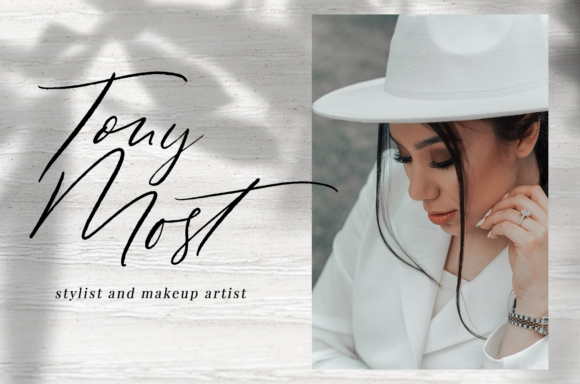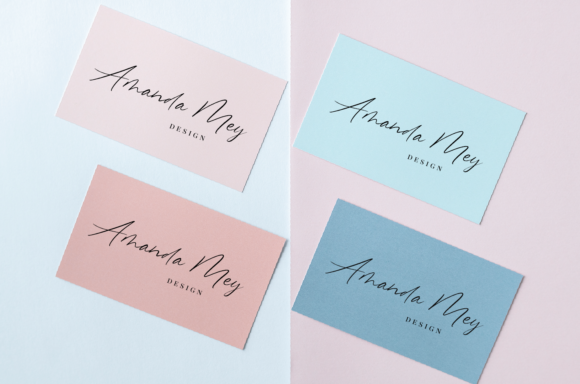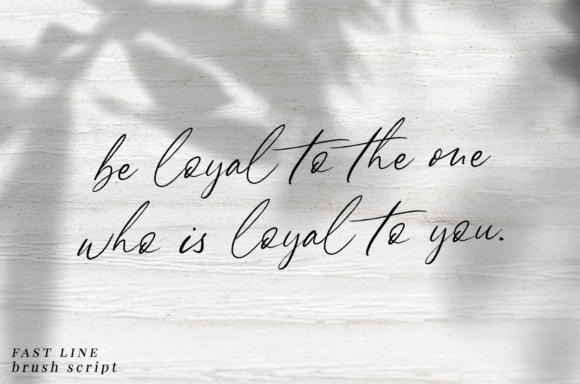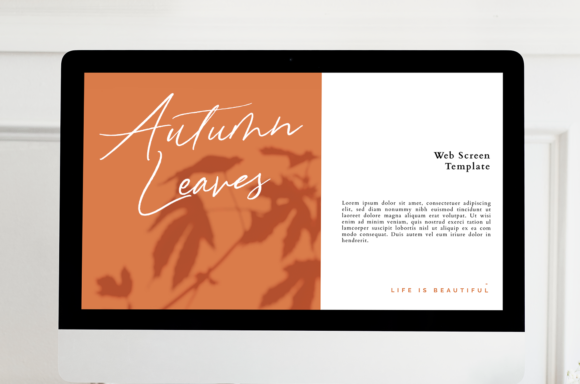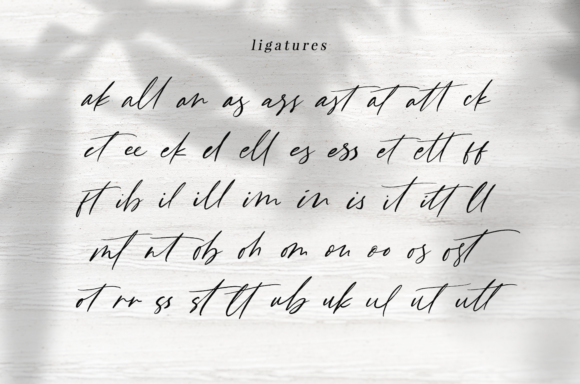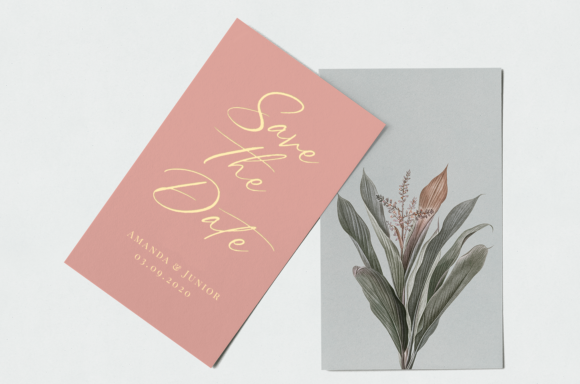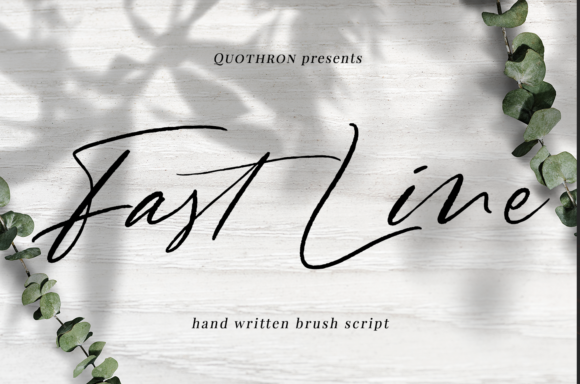
Introducing Fast Line Font: Elevate Your Designs with Elegance
Are you on the lookout for a font that can add a touch of sophistication and elegance to your designs? Look no further than Fast Line Font, a beautiful, flowing handwritten font that is sure to capture your heart. With its unique and timeless style, Fast Line Font is the perfect addition to your favorite projects, allowing you to create spectacular designs that stand out from the crowd.
The Characteristics of Fast Line Font
Fast Line Font is described by its elegant touch, which sets it apart from other fonts. Its flowing lines and curves create a sense of movement and fluidity, making it perfect for designs that require a touch of dynamism. The font’s distinct style is both classic and modern, making it versatile and suitable for a wide range of projects, from branding and advertising to packaging and digital media.
Why Choose Fast Line Font?
So, what makes Fast Line Font so special? Here are just a few reasons why designers and crafters are falling in love with this incredible font:
- Unique and Timeless Style: Fast Line Font boasts a style that is both unique and timeless, ensuring that your designs will never go out of fashion.
- Elegant Touch: The font’s elegant touch adds a level of sophistication to your designs, making them perfect for high-end brands and luxury products.
- Versatility: Fast Line Font is incredibly versatile, making it suitable for a wide range of projects, from digital media to print materials.
- Easy to Read: Despite its elegant and flowing lines, Fast Line Font is easy to read, making it perfect for body text and captions.
How to Use Fast Line Font in Your Designs
Fast Line Font is incredibly easy to use and can be incorporated into your designs in a variety of ways. Here are a few ideas to get you started:
- Branding and Logo Design: Use Fast Line Font to create stunning logos and branding materials that exude elegance and sophistication.
- Digital Media: Add a touch of elegance to your digital media, including social media graphics, blog posts, and website headers.
- Print Materials: Use Fast Line Font to create beautiful print materials, including business cards, brochures, and packaging.
- Crafting and Scrapbooking: Add a personal touch to your crafting and scrapbooking projects with Fast Line Font, perfect for journaling and titling.
Tips and Tricks for Working with Fast Line Font
To get the most out of Fast Line Font, here are a few tips and tricks to keep in mind:
- Experiment with Font Sizes: Fast Line Font looks stunning in a variety of font sizes, so don’t be afraid to experiment to find the perfect size for your design.
- Pair with Other Fonts: Fast Line Font pairs beautifully with other fonts, so try combining it with a bold font for added contrast.
- Use in Combination with Images: Fast Line Font looks stunning when used in combination with images, so try incorporating it into your designs to add a touch of elegance.
Fast Line Font is a beautiful, flowing handwritten font that is sure to elevate your designs to the next level. With its elegant touch, unique style, and versatility, it’s the perfect addition to your favorite projects. Whether you’re a designer, crafter, or simply someone who loves to create, Fast Line Font is sure to inspire you to create spectacular designs that stand out from the crowd.